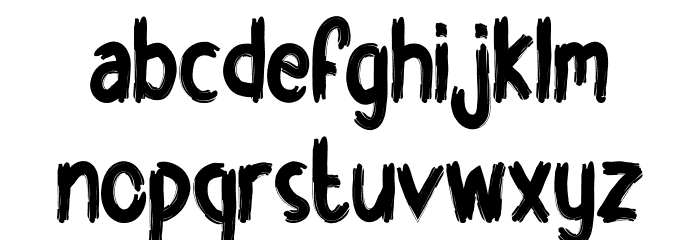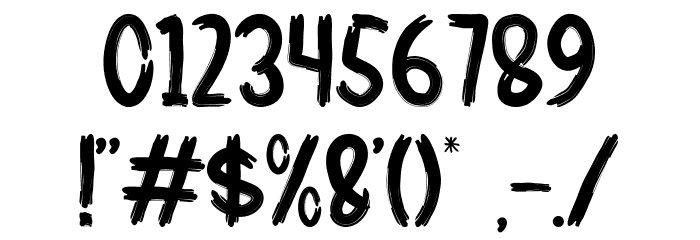
Halloween Day Font
This font features a bold and expressive style, reminiscent of hand-painted brush strokes. The characters have an uneven, organic appearance, with varying thicknesses that add a dynamic and energetic feel. The uppercase and lowercase letters maintain a consistent style, with slightly exaggerated curves and angles that enhance its playful and artistic nature. Numbers and special characters follow the same design principles, ensuring a cohesive look across all elements. The font's unique texture and irregular edges make it stand out, ideal for creative and eye-catching designs.
A bold, brush-style font with an energetic and artistic flair.
- Proposed Projects: Perfect for Halloween-themed designs, posters, event invitations, and creative branding projects.